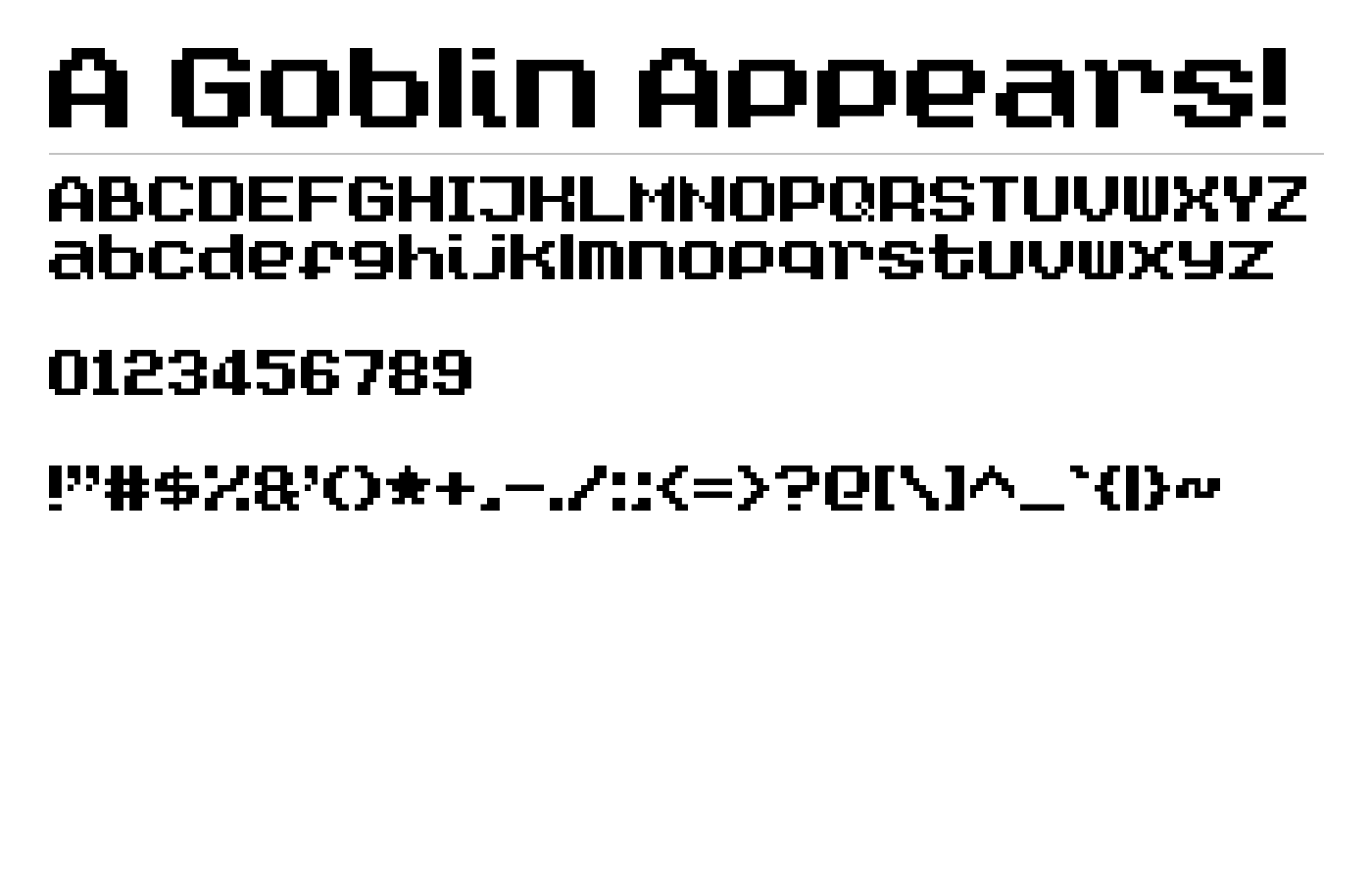
A Goblin Appears! is a bold, pixelated sans-serif font that captures a retro, 8-bit video game aesthetic with its blocky, geometric letterforms and uniform stroke weight. This font feels playful and nostalgic, perfect for projects that seek to evoke classic gaming or digital themes with a fun, informal style. It works best for headlines, logos, or digital art where a strong, eye-catching pixel vibe is desired.
A Goblin Appears! Font
About A Goblin Appears! Font